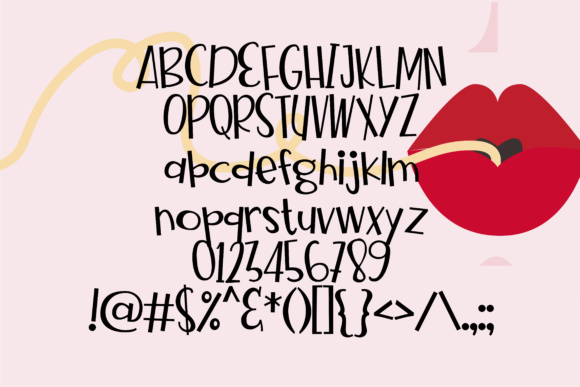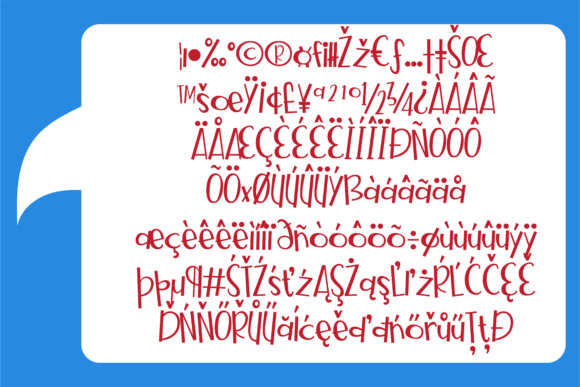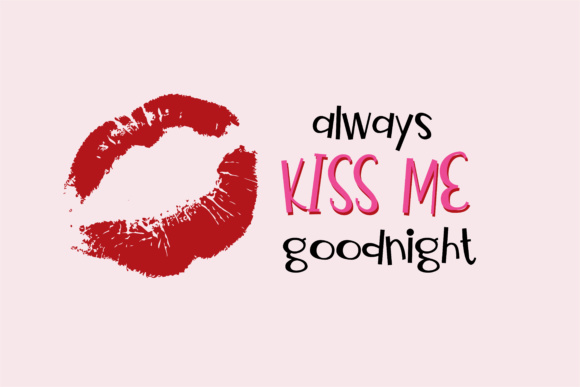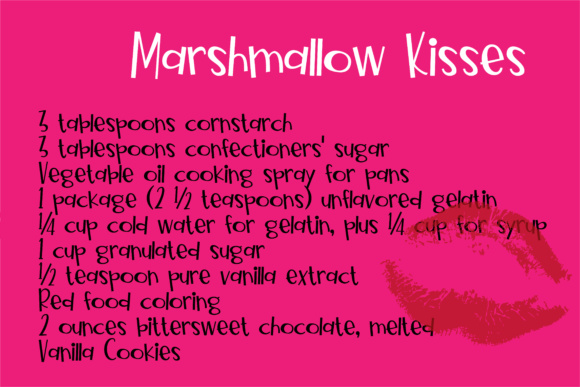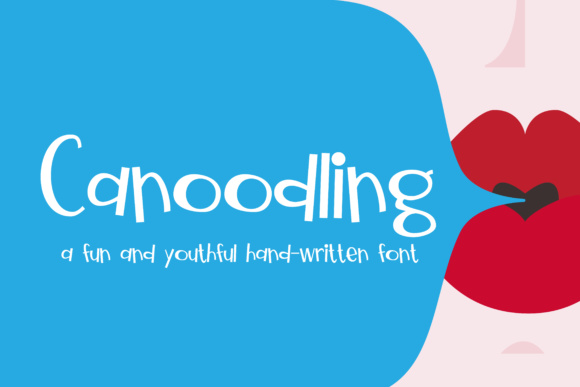
Canoodling Font: A Whimsical and Fun Typeface for Your Creative Projects
Are you looking for a font that can add a touch of playfulness and nostalgia to your designs? Look no further than Canoodling, a charming and youthful font that’s perfect for crafters, designers, and anyone looking to add some retro flair to their projects. In this article, we’ll dive into the world of Canoodling font, exploring its unique features, benefits, and uses.
The Retro Charm of Canoodling Font
Canoodling font is heavily reminiscent of retro font styles, evoking memories of childhood and a bygone era. Its whimsical and fun design makes it perfect for projects that require a lighthearted and youthful touch. The font’s toggled letters add a unique and playful twist, giving it a clean and fresh look that’s sure to capture attention.
Key Features of Canoodling Font
• Whimsical and fun design: Canoodling font is designed to bring a smile to your face. Its playful and carefree style makes it perfect for projects that require a touch of personality.
• Toggled letters: The font’s toggled letters add a unique twist, giving it a clean and fresh look that’s perfect for headlines, titles, and other design elements.
• Retro style: Canoodling font is heavily influenced by retro font styles, making it perfect for projects that require a nostalgic touch.
• Clean and youthful look: The font’s clean and youthful design makes it perfect for projects that require a modern and fresh look.
Benefits of Using Canoodling Font
So why choose Canoodling font for your projects? Here are just a few benefits of using this charming typeface:
• Adds a touch of personality: Canoodling font is designed to bring a smile to your face. Its playful and carefree style makes it perfect for projects that require a touch of personality.
• Perfect for creative projects: Whether you’re a designer, crafter, or DIY enthusiast, Canoodling font is perfect for creative projects that require a unique and playful touch.
• Easy to read: Despite its playful design, Canoodling font is easy to read, making it perfect for body text and other written content.
• Versatile: Canoodling font can be used for a wide range of projects, from posters and flyers to social media graphics and website headers.
Uses for Canoodling Font
So what can you use Canoodling font for? Here are just a few ideas to get you started:
• Posters and flyers: Canoodling font is perfect for creating eye-catching posters and flyers that require a playful and attention-grabbing design.
• Social media graphics: Use Canoodling font to create social media graphics that stand out from the crowd and add a touch of personality to your online presence.
• Website headers: Add a touch of whimsy to your website headers with Canoodling font, perfect for blogs, portfolios, and other online projects.
• Crafting and DIY projects: Canoodling font is perfect for crafting and DIY projects, such as making signs, labels, and other decorative items.
In conclusion, Canoodling font is a charming and playful typeface that’s perfect for designers, crafters, and anyone looking to add a touch of retro flair to their projects. Its unique features, benefits, and uses make it a versatile and fun font that’s sure to bring a smile to your face. So why not give Canoodling font a try and see how it can add a touch of whimsy and personality to your creative projects?